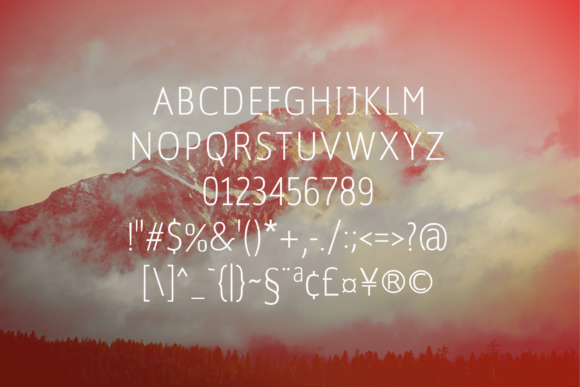
Discover the Elegance of Amsterdam Thin Font: Elevate Your Design Projects
Are you looking for a font that exudes sophistication and style? Look no further than the Amsterdam Thin Font, an elegant sans serif font inspired by the charming city of Amsterdam. This beautiful font is designed to turn any design project into a true standout, making it a must-have for designers and crafters alike.
The Inspiration Behind Amsterdam Thin Font
Amsterdam, the capital city of the Netherlands, is known for its rich history, stunning architecture, and vibrant cultural scene. The city’s iconic canals, Rijksmuseum, and Anne Frank House are just a few of the many landmarks that make Amsterdam a unique and fascinating place. The Amsterdam Thin Font captures the essence of this beautiful city, distilling its elegance and sophistication into a clean and modern sans serif font.
Key Features of Amsterdam Thin Font
So, what makes Amsterdam Thin Font so special? Here are just a few of its key features:
- Elegant and refined design: Amsterdam Thin Font boasts a sleek and sophisticated design, perfect for creating high-end designs that demand attention.
- Clean and modern sans serif: The font’s clean lines and minimalist aesthetic make it perfect for use in a wide range of design projects, from logos and branding to headings and body text.
- Highly legible: Despite its delicate appearance, Amsterdam Thin Font is highly legible, even at small sizes, making it perfect for use in body text and other applications where readability is key.
- Versatile: Amsterdam Thin Font is incredibly versatile, and can be used in a wide range of design projects, from print and digital media to packaging and advertising.
How to Use Amsterdam Thin Font in Your Design Projects
Amsterdam Thin Font is an incredibly versatile font that can be used in a wide range of design projects. Here are just a few ideas to get you started:
- Logos and branding: Use Amsterdam Thin Font to create a sophisticated and elegant logo or brand identity that will help your business stand out.
- Headings and titles: Add a touch of elegance to your headings and titles with Amsterdam Thin Font, perfect for use in print and digital media.
- Body text: Use Amsterdam Thin Font as a body text font for a clean and modern look that’s easy to read.
- Packaging and advertising: Add a touch of sophistication to your packaging and advertising materials with Amsterdam Thin Font.
Why Choose Amsterdam Thin Font?
So, why choose Amsterdam Thin Font over other fonts? Here are just a few reasons:
- Unique and distinctive: Amsterdam Thin Font is a unique and distinctive font that will help your design projects stand out from the crowd.
- Elegant and sophisticated: The font’s elegant and sophisticated design makes it perfect for high-end designs and luxury brands.
- Highly versatile: Amsterdam Thin Font is incredibly versatile, and can be used in a wide range of design projects.